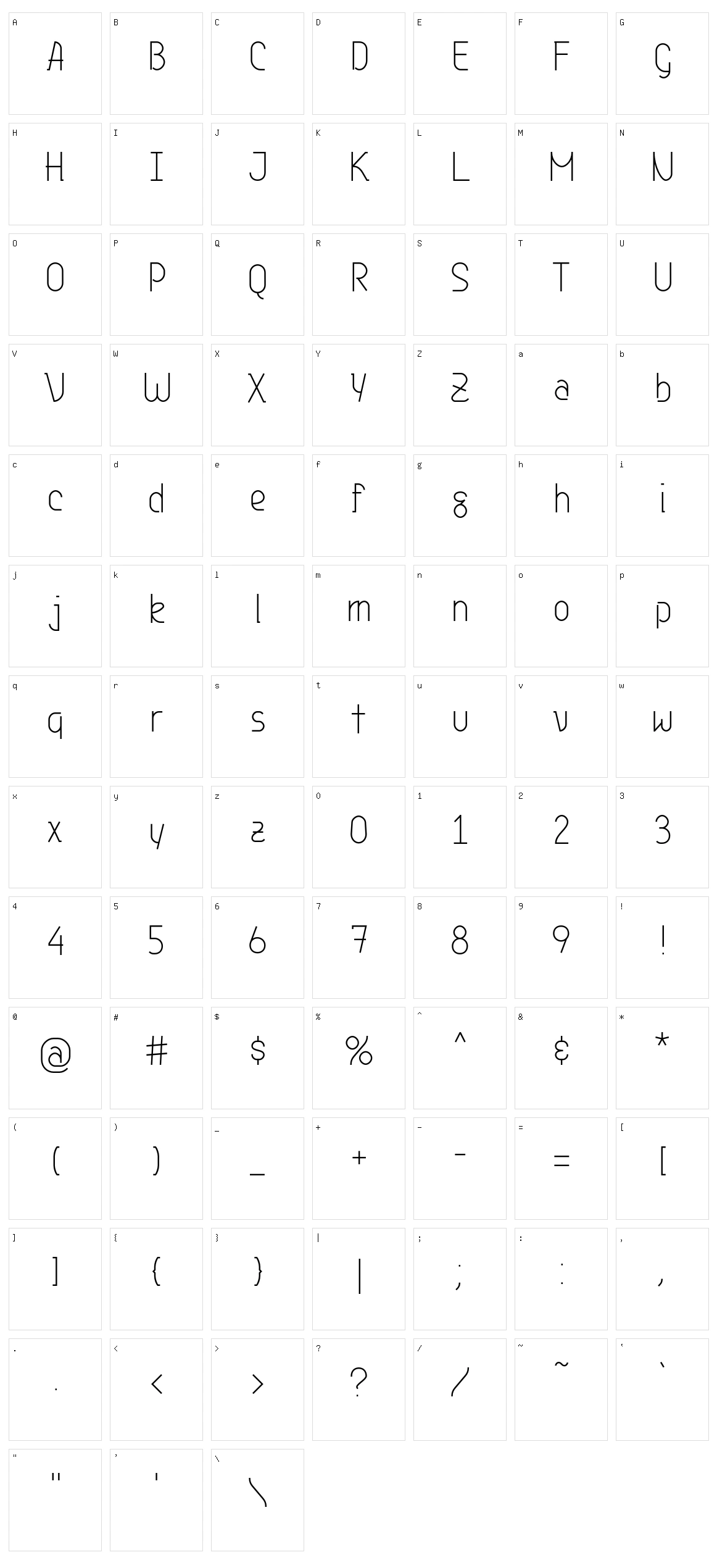
The free font Genji is carefully designed by UkiyoMoji Fonts, showcasing a thoughtful balance of creativity and usability and falls under the Sans serif font style. When you download the ZIP file, it contains only 12.85 KB of font files, making it lightweight and quick to download. Please review the license details below to understand permitted usage and distribution rights. If license information is not available, we recommend using this font for personal projects only or contacting the author directly for commercial usage permissions.